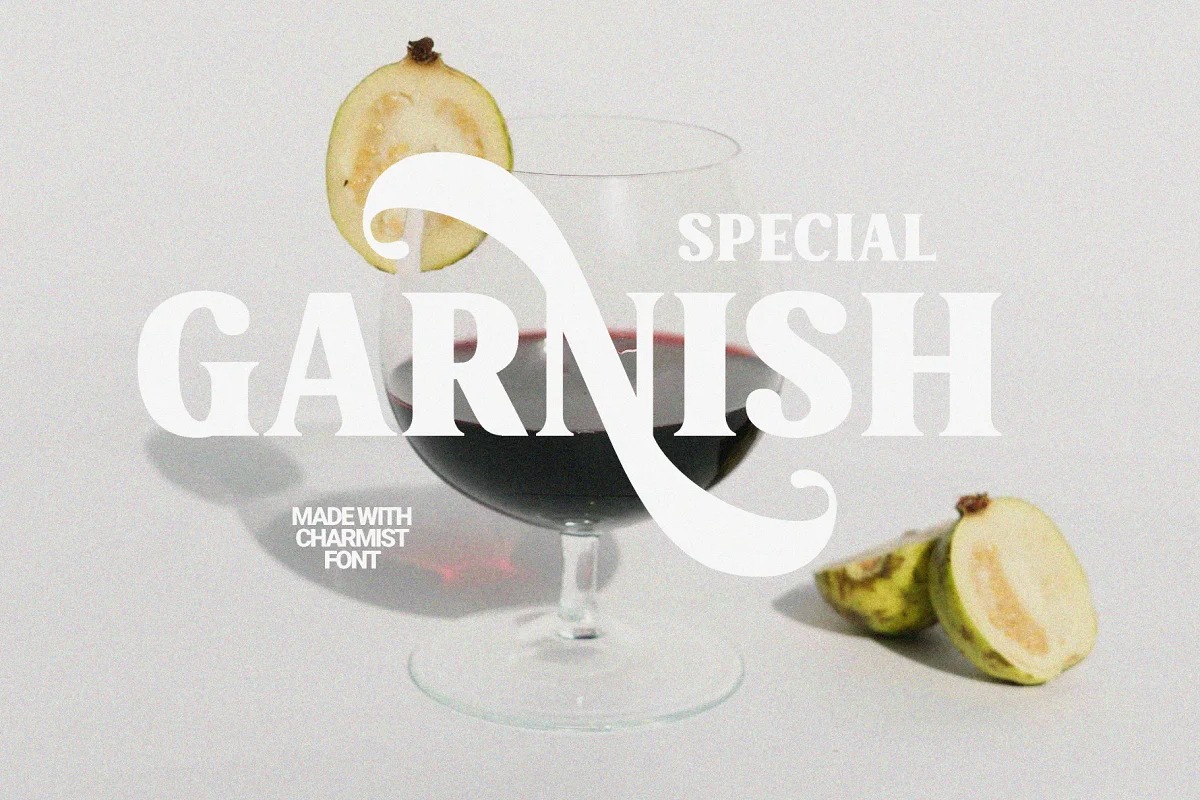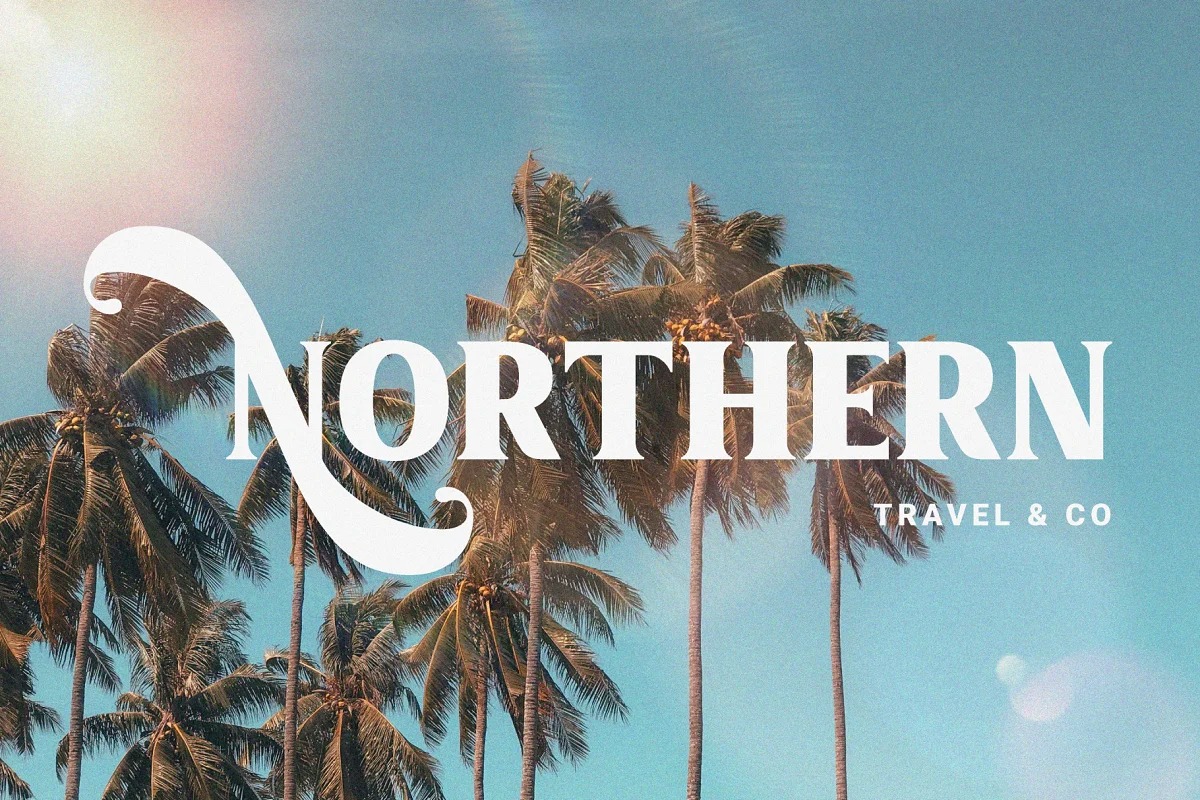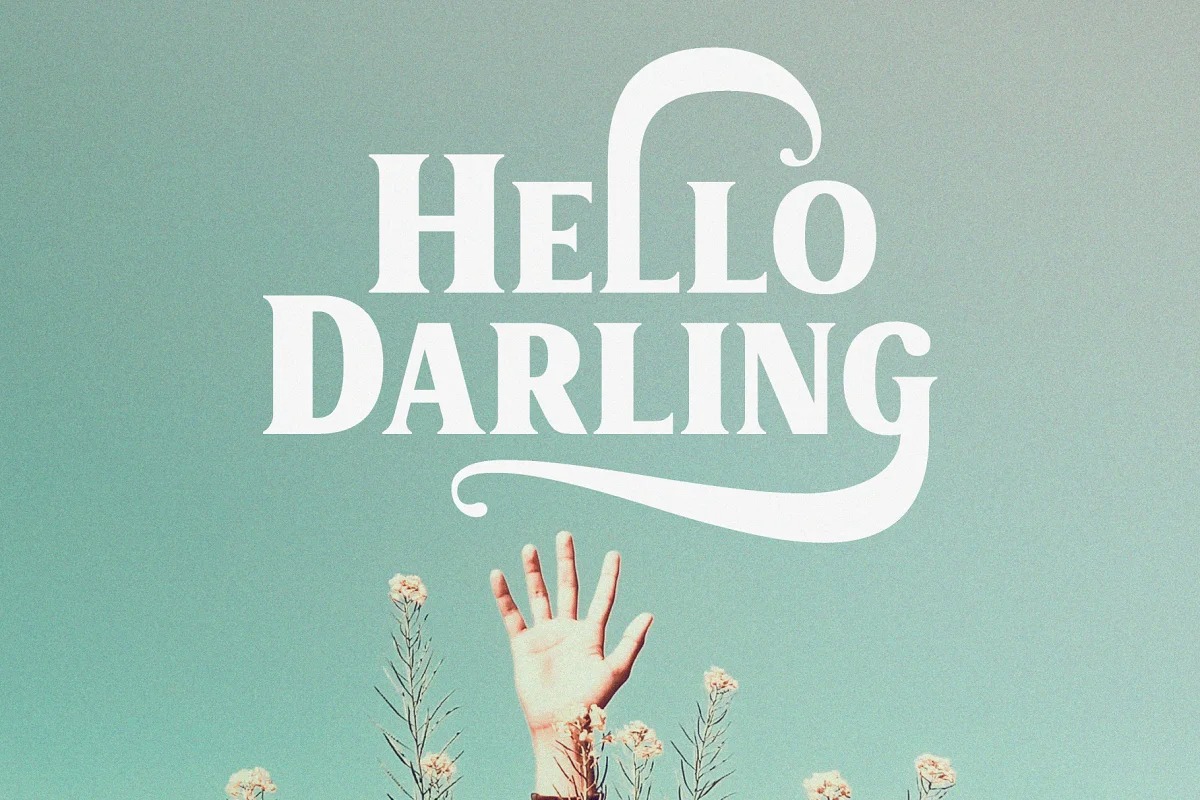
Charmist Font
Charmist Serif Font
This is a elegant, chic, modern and stylish serif typeface manufactured by Prioritype. Has the characteristics of a thick and thin font with a beautiful curve so that it is comfortable to look at. There is a uniqueness in the alternative characters that you can play. Very impressive for branding designs, logos or creative posts. Get it now and start playing!